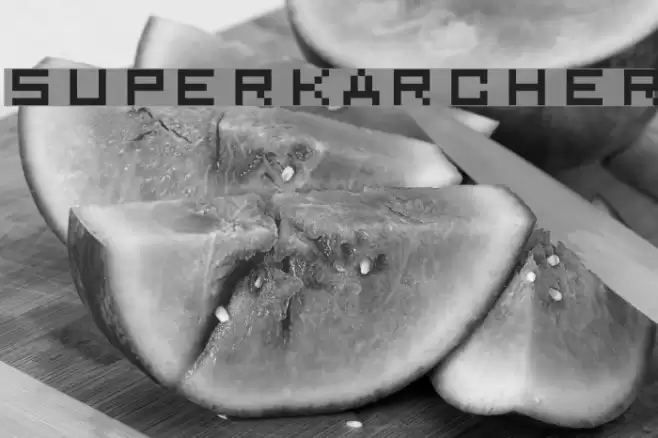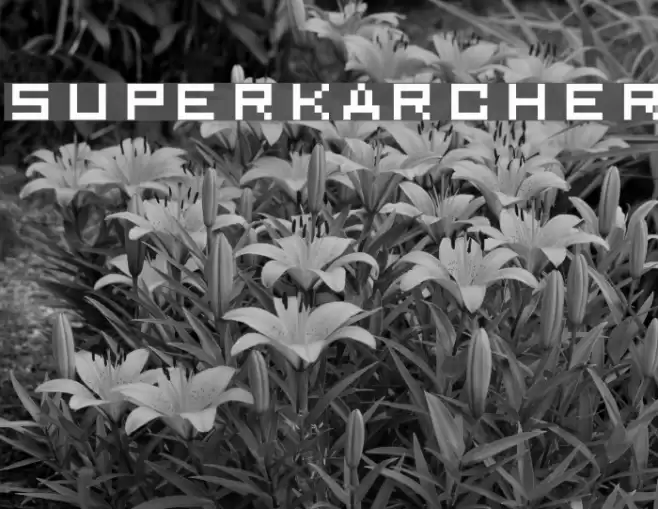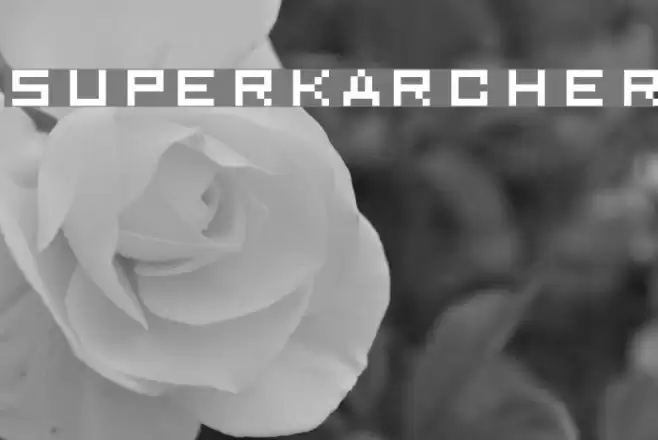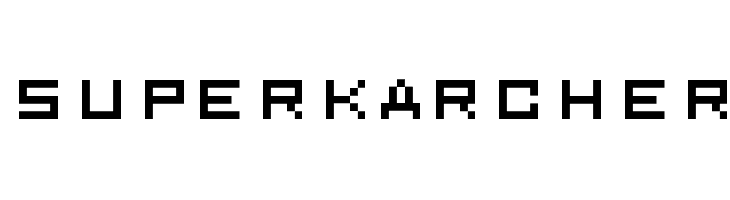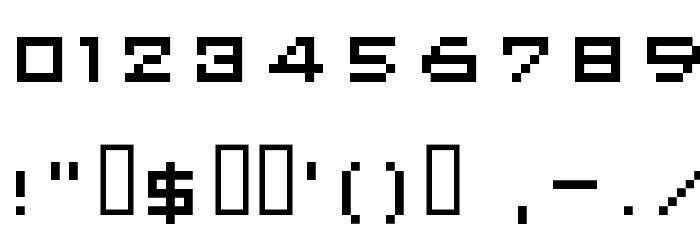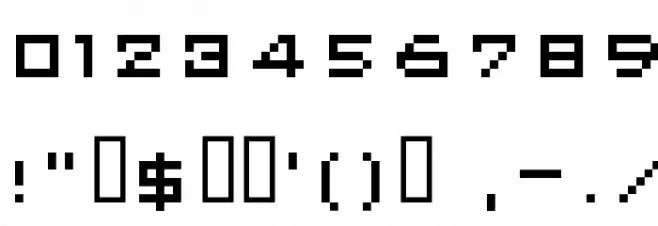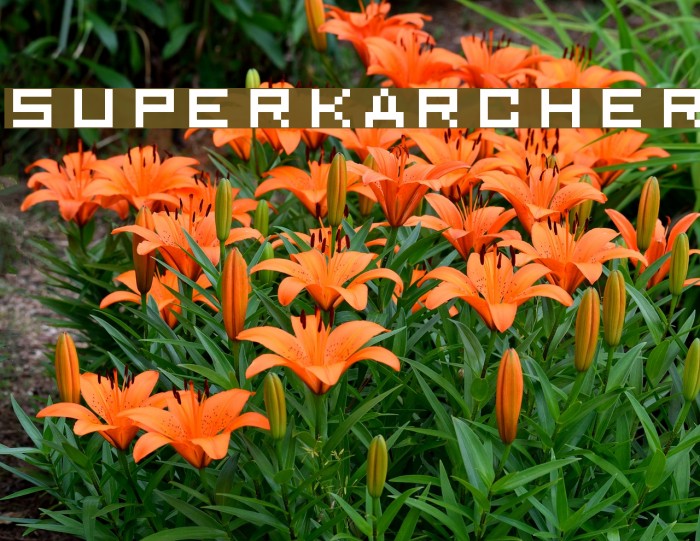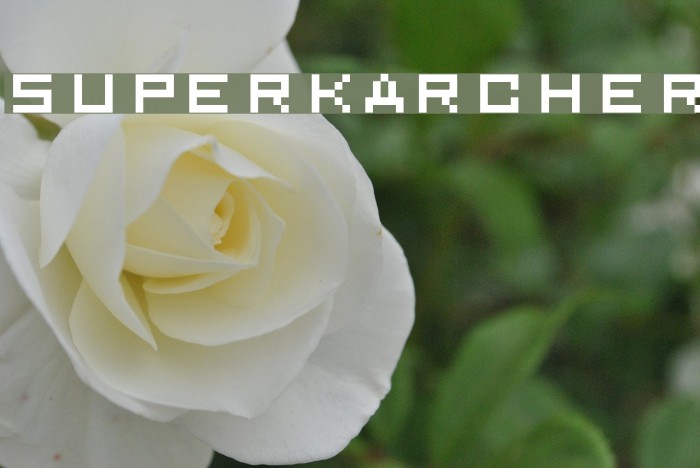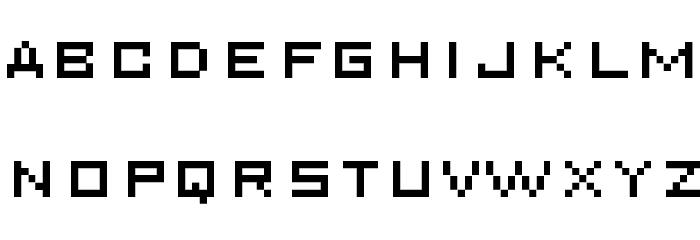
superkarcher Font
superkarcher Description
This font features a pixelated, blocky design reminiscent of early digital displays and video games. Each character is constructed with a grid-like structure, giving it a distinctly retro and technological feel. The uniformity in stroke width and the geometric precision of the characters contribute to its digital aesthetic. The uppercase and lowercase letters maintain a consistent height, enhancing readability while preserving the pixel art style. Numbers and special characters are crafted with the same attention to detail, ensuring a cohesive look across all glyphs. This font is ideal for projects that aim to evoke nostalgia or a sense of digital minimalism.
A pixelated, retro-style font with a digital, blocky appearance from Pixel fonts.
- Proposed Projects: Perfect for retro video game designs, digital art projects, tech-themed posters, and any creative work that requires a nostalgic digital touch.
- Overall Style: Retro, Digital